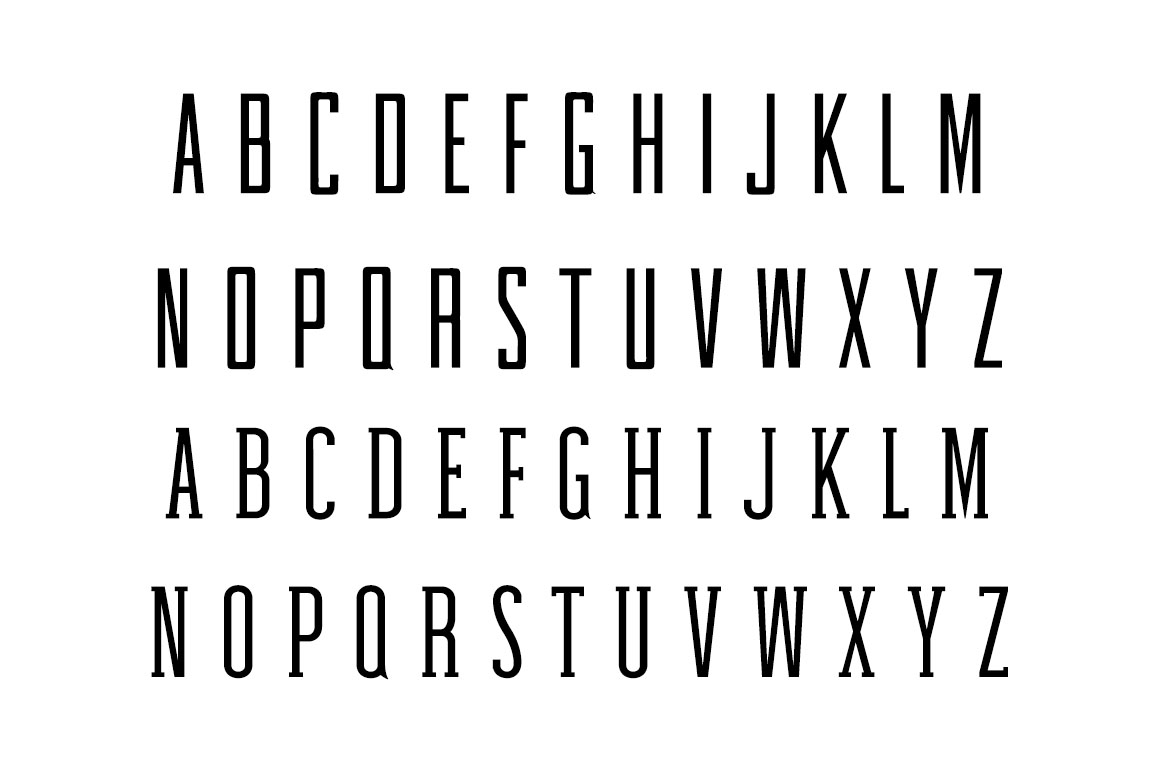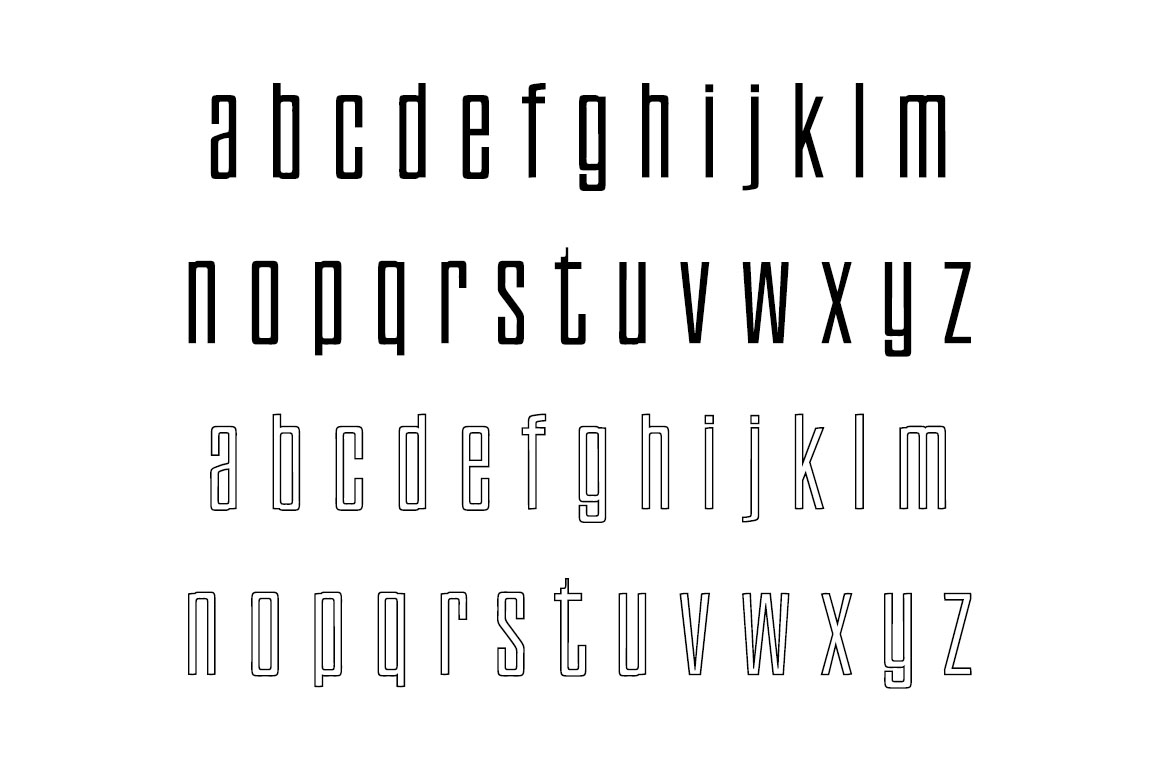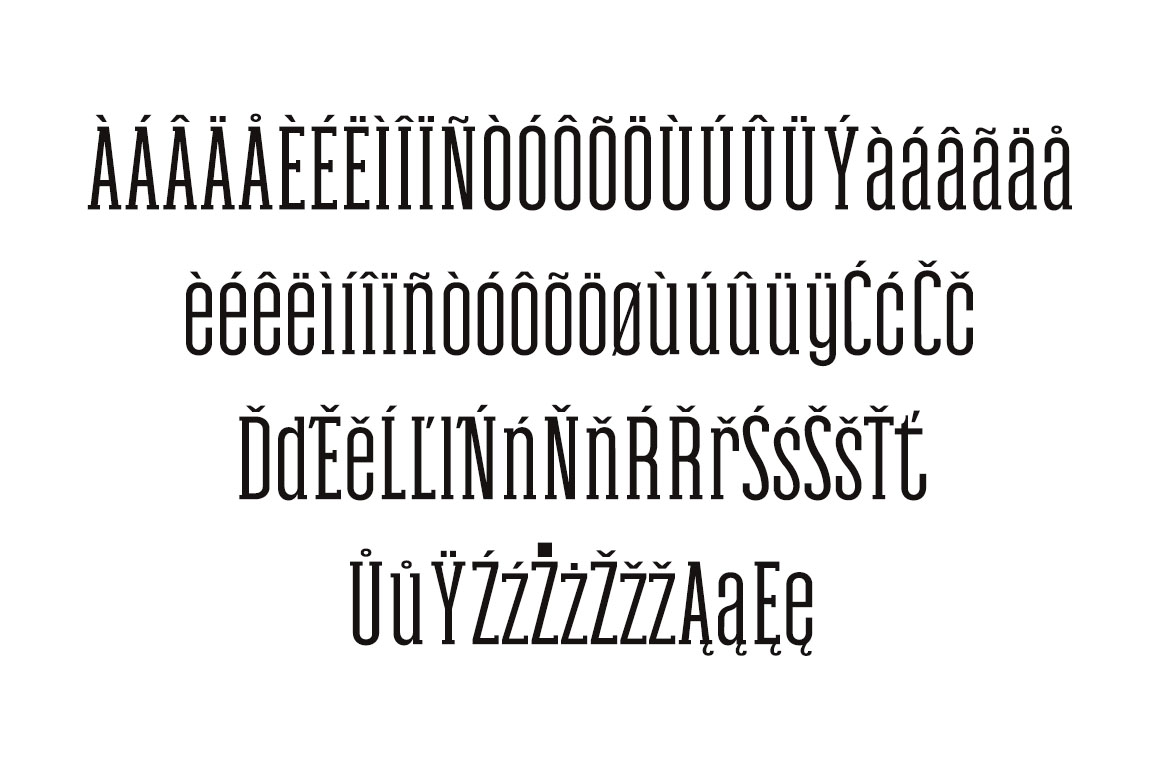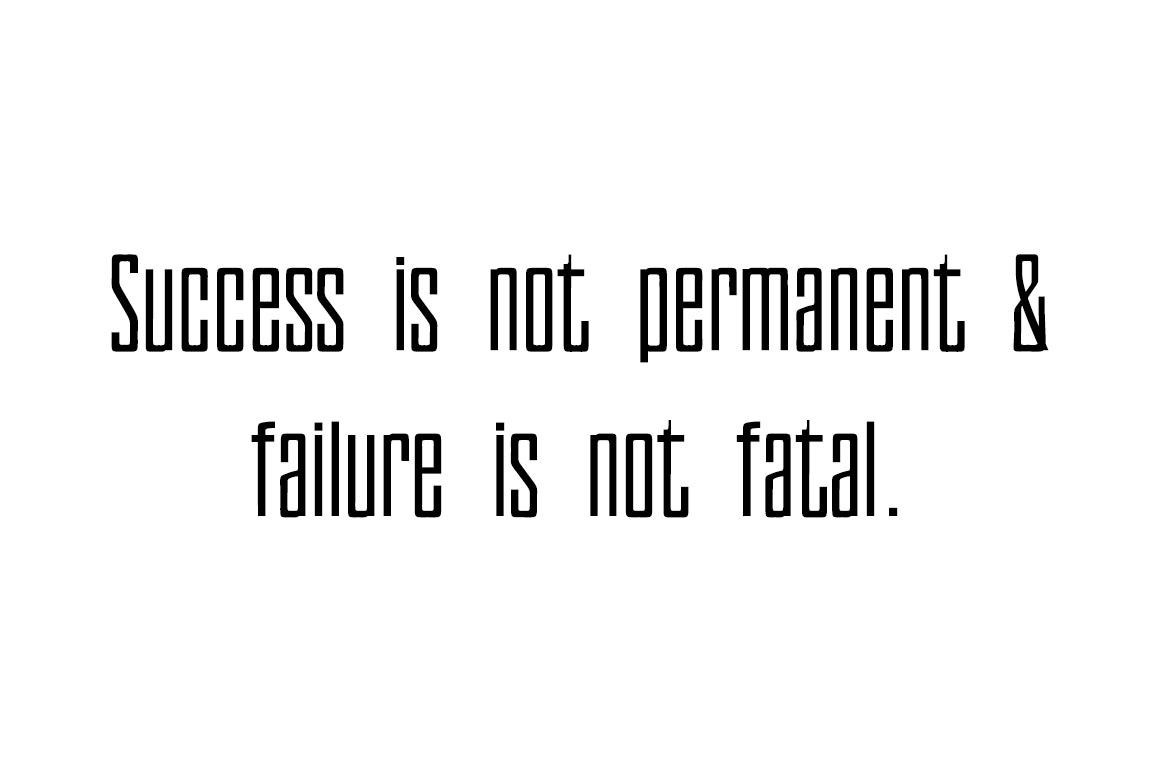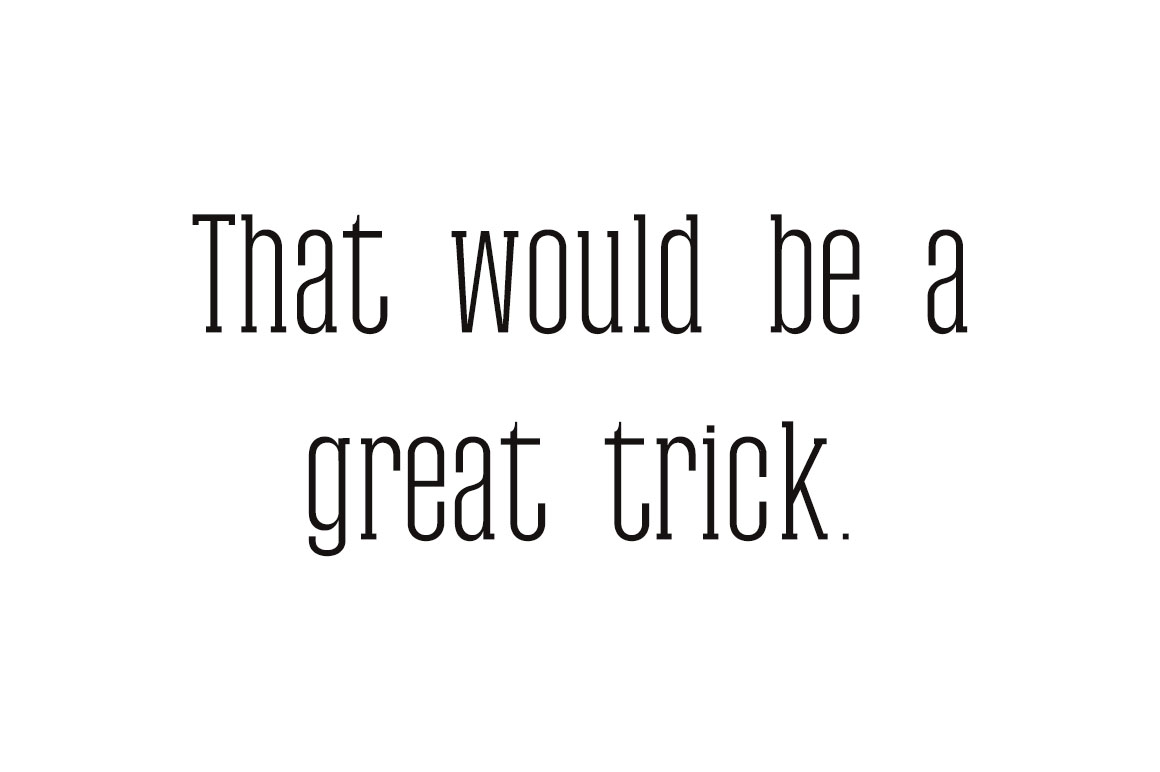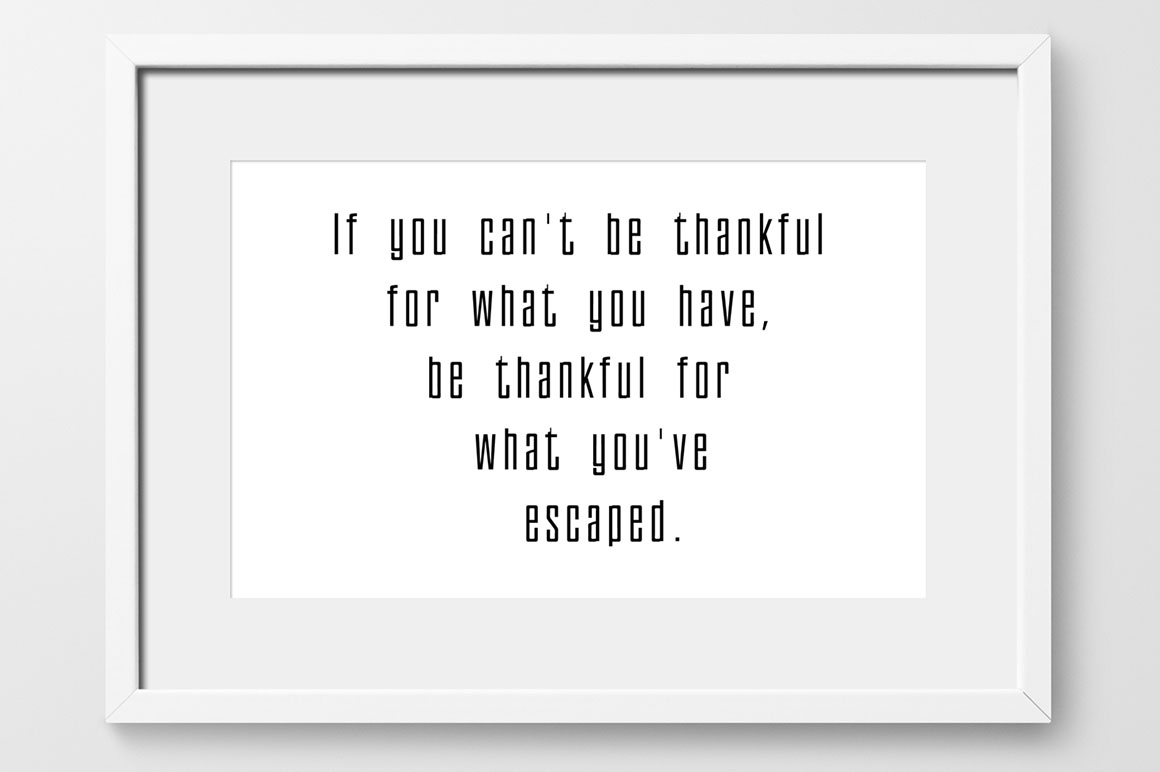
Gayora Font: Elevate Your Designs with Elegance and Impact
In the world of typography, a font can make or break a design. For designers and crafters looking for a unique yet versatile typeface, the Gayora Font is an excellent choice. The Gayora Duo is a clean, vibrant font with a minimal style, offering a perfect blend of elegance and impact. This serif font comes in two styles: sans and slab serif, making it incredibly versatile for various design projects.
Clean, Vibrant, and Minimal
The Gayora Font is characterized by its clean lines, vibrant feel, and minimalistic approach. This combination makes it ideal for designers who want to create elegant and sophisticated designs without overpowering the content. The minimal style ensures that the font remains uncluttered and easy to read, even at smaller sizes.
Strong Characters for Maximum Impact
One of the standout features of the Gayora Font is its strong characters. Each letter is carefully crafted to make a statement, ensuring that your designs leave a lasting impression on the viewer. Whether you’re working on a branding project, a website, or a print design, the Gayora Font’s strong characters will help you achieve your goals.
Versatility at Its Best: Sans & Slab Serif
The Gayora Duo offers two distinct styles: sans serif and slab serif. This versatility allows designers to experiment with different looks and feels, ensuring that their designs always stand out. The sans serif version is perfect for modern, minimalist designs, while the slab serif version adds a touch of sophistication and elegance.
Elegant Style for Various Projects
The Gayora Font is suitable for a wide range of projects, from elegant editorials and luxury branding to websites and digital applications. Its clean and minimal style ensures that it can adapt to various design contexts, making it a valuable addition to any designer’s toolkit.
Why Choose Gayora Font?
- Clean and Minimal Style: Perfect for designers looking for a simple yet elegant typeface.
- Vibrant Feel: Adds a touch of energy and modernity to your designs.
- Strong Characters: Ensures your designs make a lasting impression.
- Versatile: Available in sans and slab serif styles, suitable for a wide range of projects.
- Elegant and Impactful: Ideal for projects that require both sophistication and attention-grabbing typography.
The Gayora Font is a powerful tool for designers and crafters looking to elevate their designs with elegance and impact. Its clean, vibrant, and minimal style, combined with strong characters and versatility, makes it an excellent choice for a wide range of projects. Whether you’re working on a branding campaign, a website, or a print design, the Gayora Duo is sure to help you achieve your design goals.